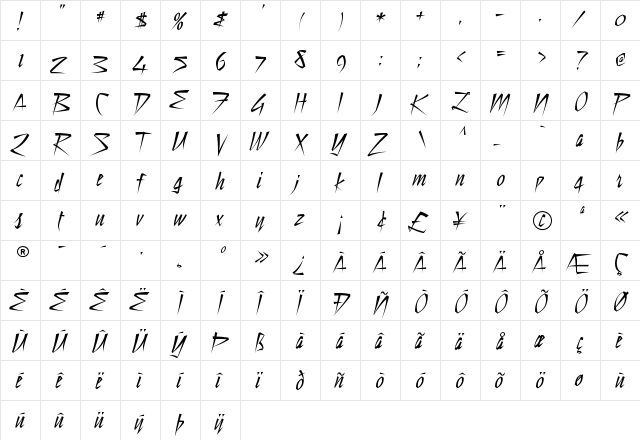
Still Time Regular
Design Context for Still Time Typeface
Still Time is a composed and adaptable typeface that performs quietly and consistently across a wide range of design contexts.